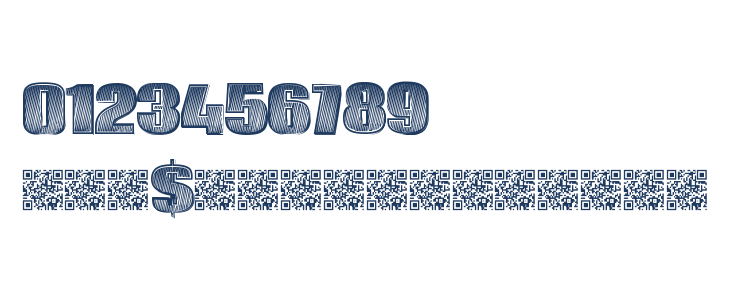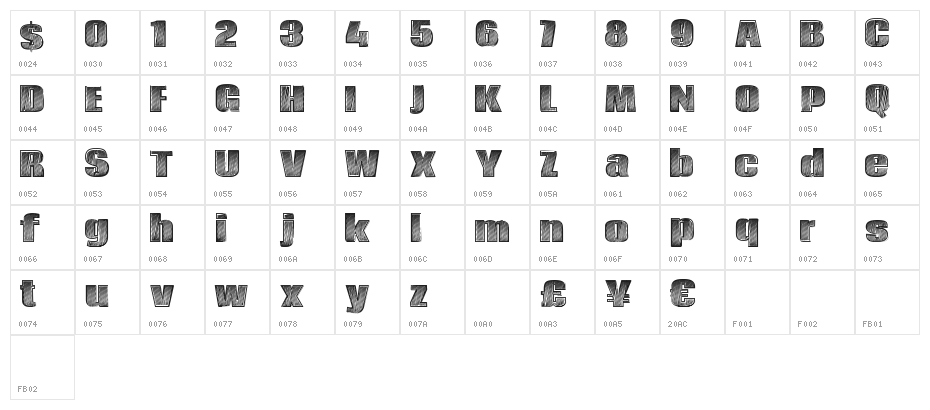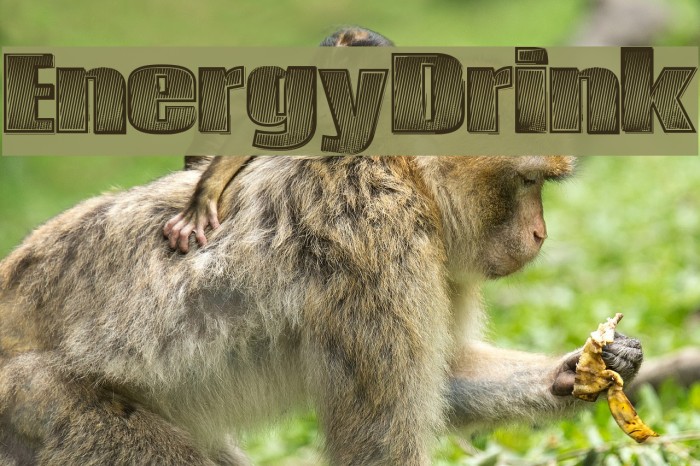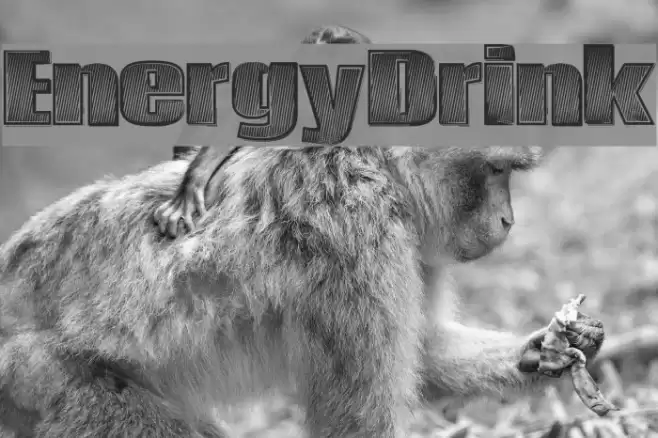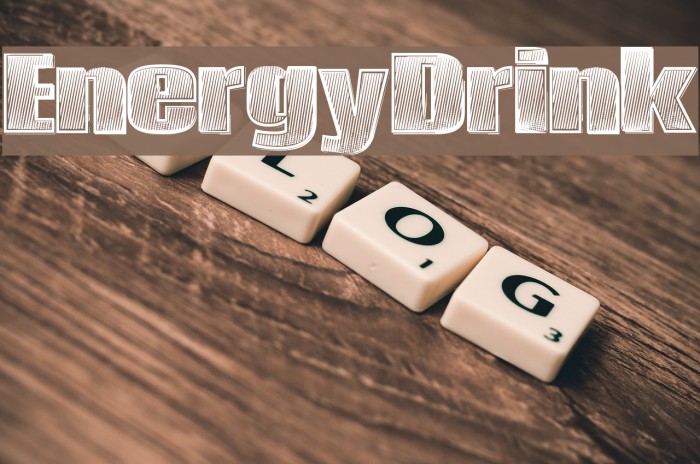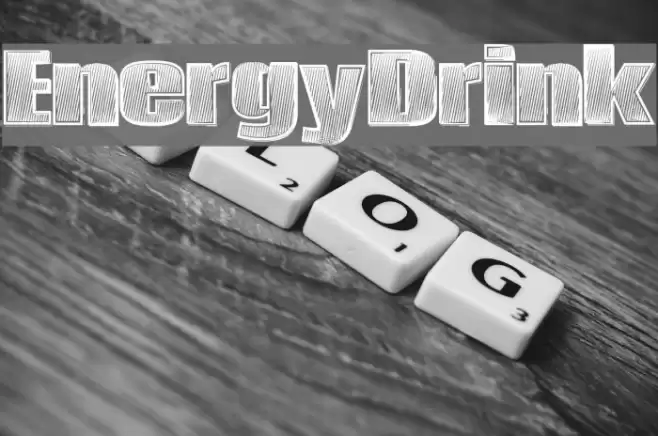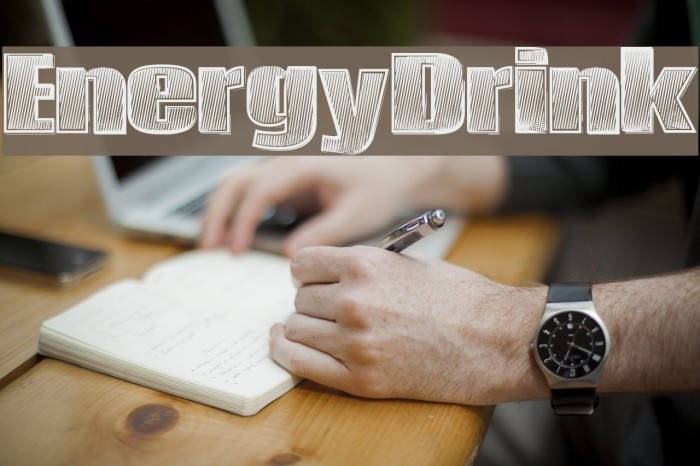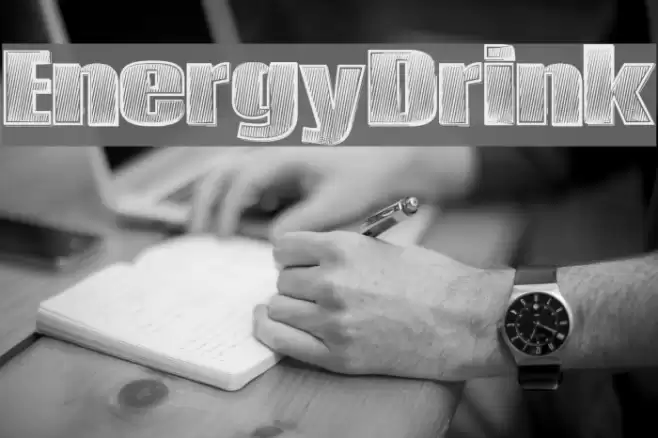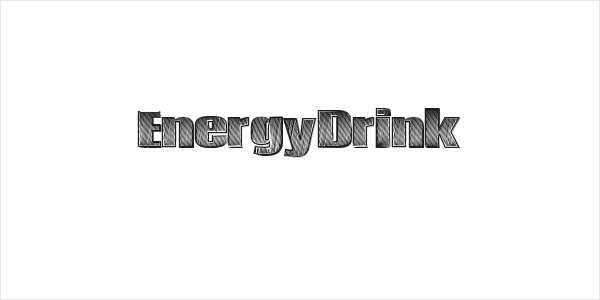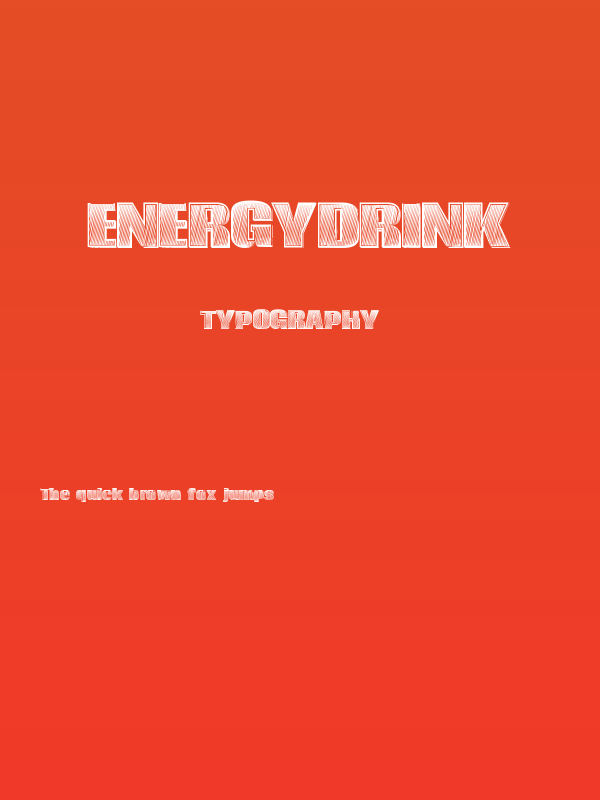
EnergyDrink Font
EnergyDrink Description
This font features a bold, energetic style with a distinct three-dimensional appearance. The letters are characterized by thick, block-like forms with diagonal hatching that gives them a textured, dynamic look. The uppercase and lowercase letters maintain a consistent width and height, providing a uniform appearance. The numbers and special characters follow the same design principles, ensuring a cohesive look across all glyphs. The font's boldness and unique texture make it stand out, ideal for projects that require a strong visual impact. The diagonal lines within each character add a sense of movement and energy, making it suitable for modern and edgy designs.
| Overall Style | Modern, Energetic |
| Proposed Projects | Ideal for branding, posters, headlines, and any design needing a bold, impactful typeface. |